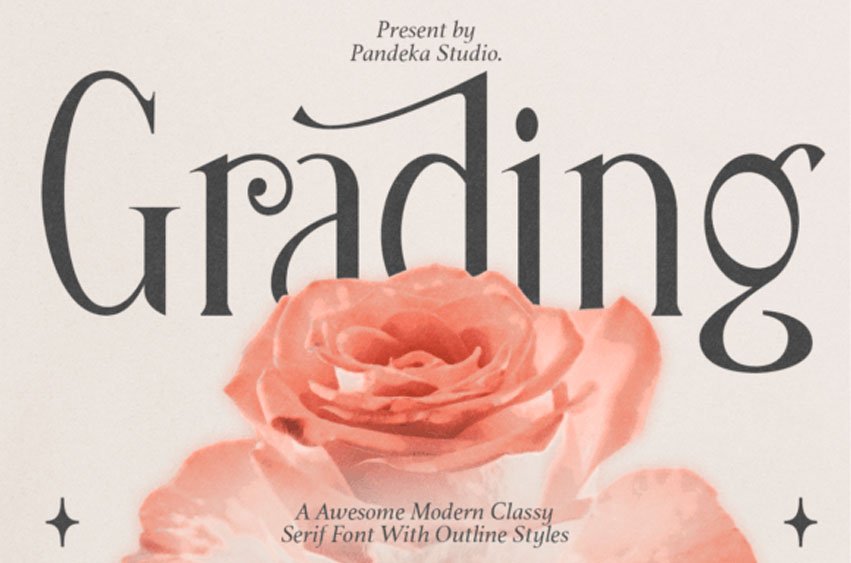
Grading Font Modern Ligature Serif! Grading is a modern, elegant, and classy serif typeface, best used as a display for headings, logos, branding, magazines, product packaging, and invitations. Grading comes with clean lines and smooth curves giving any project an extra touch of class.